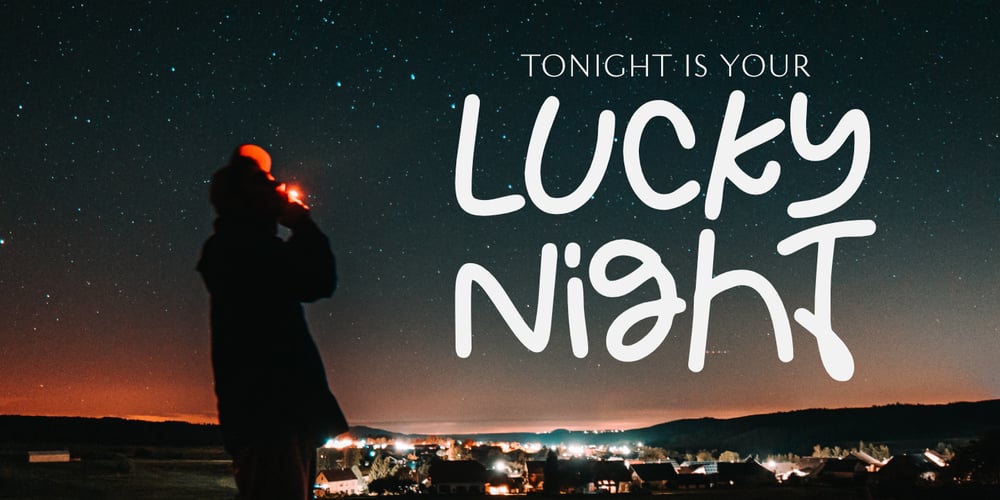
Lucky Night
Lucky Night font
Lucky Night Font Family was designed by Aldy Sidik and published by Epiclinez. Lucky Night contains 1 styles and family package options. Lucky Night is a cute, quirky, and childish handwritten font. Whimsical and relaxed, this font will brighten up each of your designs. So what’s included: Basic Latin A-Z, a-z, numbers, symbols, and punctuations Multi-Languages support: from Afrikaans Albanian Catalan Danish to Dutch English Spanish Swedish Zulu. Accented Characters : ÀÁÂÃÄÅÆÇÈÉÊËÌÍÎÏÑÒÓÔÕÖØŒŠÙÚÛÜŸÝŽàáâãäåæçèéêëìíîïñòóôõöøœšùúûüýÿžß Thank you